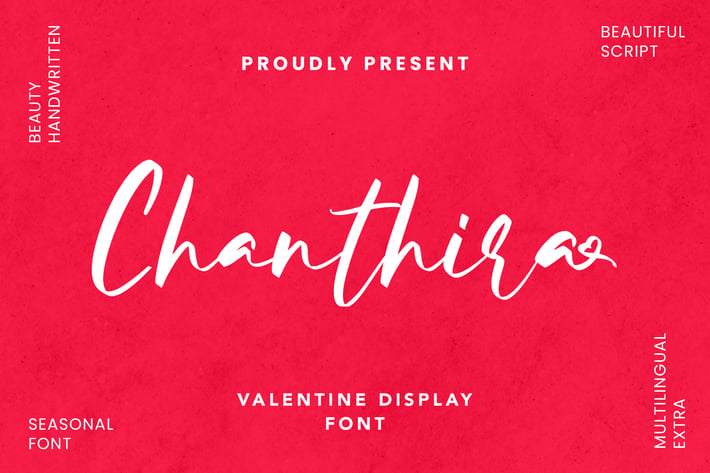
Chanthira - Valentine Display Font
Chanthira - Valentine Display Font contains a lowercase, uppercase, symbol, and also supports multi-language. There’s a lot of ligature in this font. Chanthira - Valentine Display Font also comes with ligatures, stylistic alternates and many more.
this font suitable for fashion, branding, catalog and other design that you want.